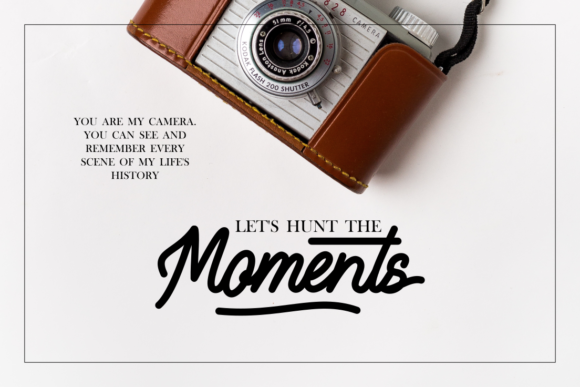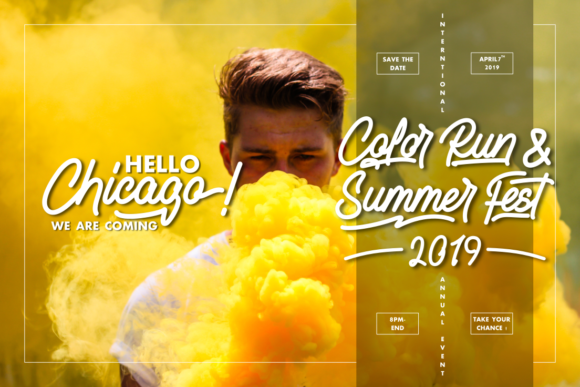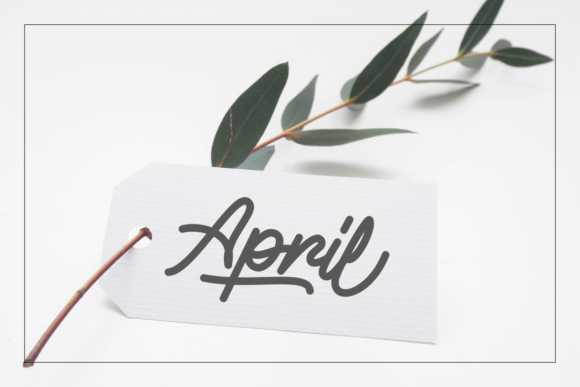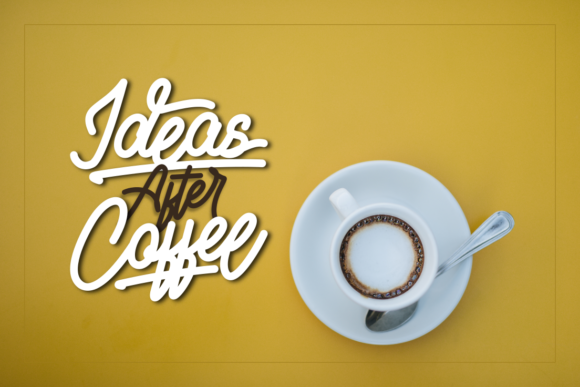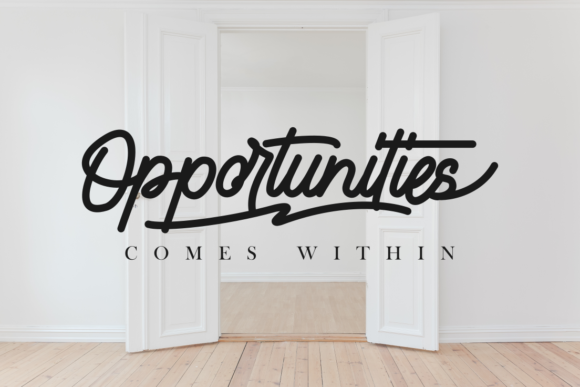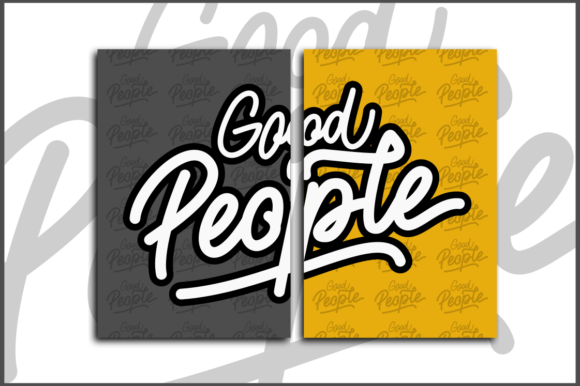
Introducing Alvaro Font: The Fun and Adorable Handwritten Font with a Unique Charm
Are you tired of using the same old fonts for your creative projects? Look no further! Alvaro Font is here to revolutionize the way you approach typography. This fun and adorable handwritten font is designed to add a touch of personality and whimsy to any design, making it a standout from the crowd. With its unique charm and character, Alvaro Font is the perfect choice for designers and crafters looking to add some flair to their work.
The Story Behind Alvaro Font
Alvaro Font is a carefully crafted handwritten font that is designed to evoke a sense of playfulness and creativity. Its unique charm lies in its imperfections and quirks, which give it a distinctly human feel. The font is the brainchild of a talented designer who sought to create a typeface that would bring a smile to people’s faces. With Alvaro Font, you can add a personal touch to your designs and make them more relatable and engaging.
Key Features of Alvaro Font
- Handwritten with love: Alvaro Font is a genuine handwritten font, crafted with care and attention to detail to ensure that it has a warm and personal feel.
- Unique character: Each letter in Alvaro Font has its own distinct personality, making it perfect for designs that require a touch of whimsy and playfulness.
- Highly legible: Despite its playful nature, Alvaro Font is highly legible, making it suitable for use in a wide range of applications, from headings and titles to body text.
- Multilingual support: Alvaro Font supports multiple languages, making it a great choice for designers who work with international clients or want to create designs that cater to a global audience.
Uses for Alvaro Font
Alvaro Font is an incredibly versatile font that can be used in a wide range of creative projects, including:
- Branding and logos: Add a touch of personality to your brand with Alvaro Font, making it more relatable and memorable.
- Invitations and greeting cards: Create beautiful and unique invitations and greeting cards that will make your recipients feel special.
- Social media graphics: Stand out on social media with eye-catching graphics that feature Alvaro Font.
- Web design: Use Alvaro Font to add a personal touch to your website, making it more engaging and user-friendly.
- Crafting and DIY projects: Add a touch of whimsy to your crafting and DIY projects, such as scrapbooking, journaling, and more.
Tips for Using Alvaro Font
To get the most out of Alvaro Font, here are some tips to keep in mind:
- Use it sparingly: Alvaro Font is a bold and playful font, so use it sparingly to avoid overwhelming your design.
- Pair it with other fonts: Experiment with pairing Alvaro Font with other fonts to create a unique and visually appealing combination.
- Experiment with colors: Alvaro Font looks great in a variety of colors, so don’t be afraid to experiment and find the perfect hue for your design.
Alvaro Font is a fun and adorable handwritten font that is sure to bring a touch of personality and whimsy to any creative project. With its unique charm and character, it’s the perfect choice for designers and crafters looking to add some flair to their work. Whether you’re working on a branding project, creating social media graphics, or crafting a DIY project, Alvaro Font is sure to make your design stand out from the crowd.